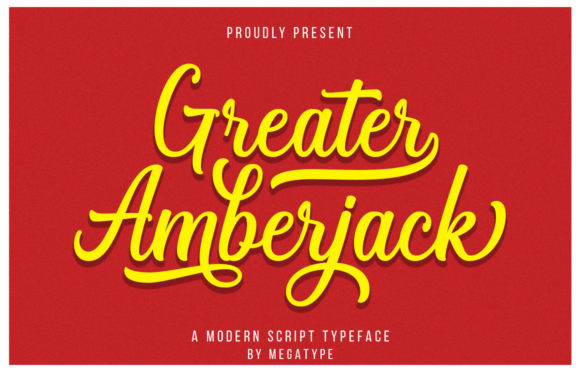
Journey into the realm of exquisite typography with Greater Amberjack, a script font that captures the essence of elegance and warmth. This modern handwritten font, meticulously crafted by Megatype, is a true gem in the world of digital artistry.
With its graceful strokes and enchanting curves, Greater Amberjack possesses an undeniable charm that captivates the senses. Its aesthetic is both timeless and contemporary, making it a versatile choice for a myriad of design endeavors.
Step into a world of creativity unleashed, where Greater Amberjack's versatility knows no bounds. Whether you're a seasoned designer or just starting your creative journey, this font will elevate your projects to new heights.
Envision your designs adorned with Greater Amberjack's alluring script. Picture logos and branding infused with a touch of sophistication, headlines that demand attention, wedding invitations exuding romance, and signatures that leave a lasting impression.
The possibilities are endless with Greater Amberjack. Unleash your imagination and witness the transformation of your creative visions into captivating realities.
So, embark on this typographic odyssey and let Greater Amberjack guide you to design greatness. Its enchanting aura will leave an indelible mark on your projects, captivating audiences and leaving them spellbound.